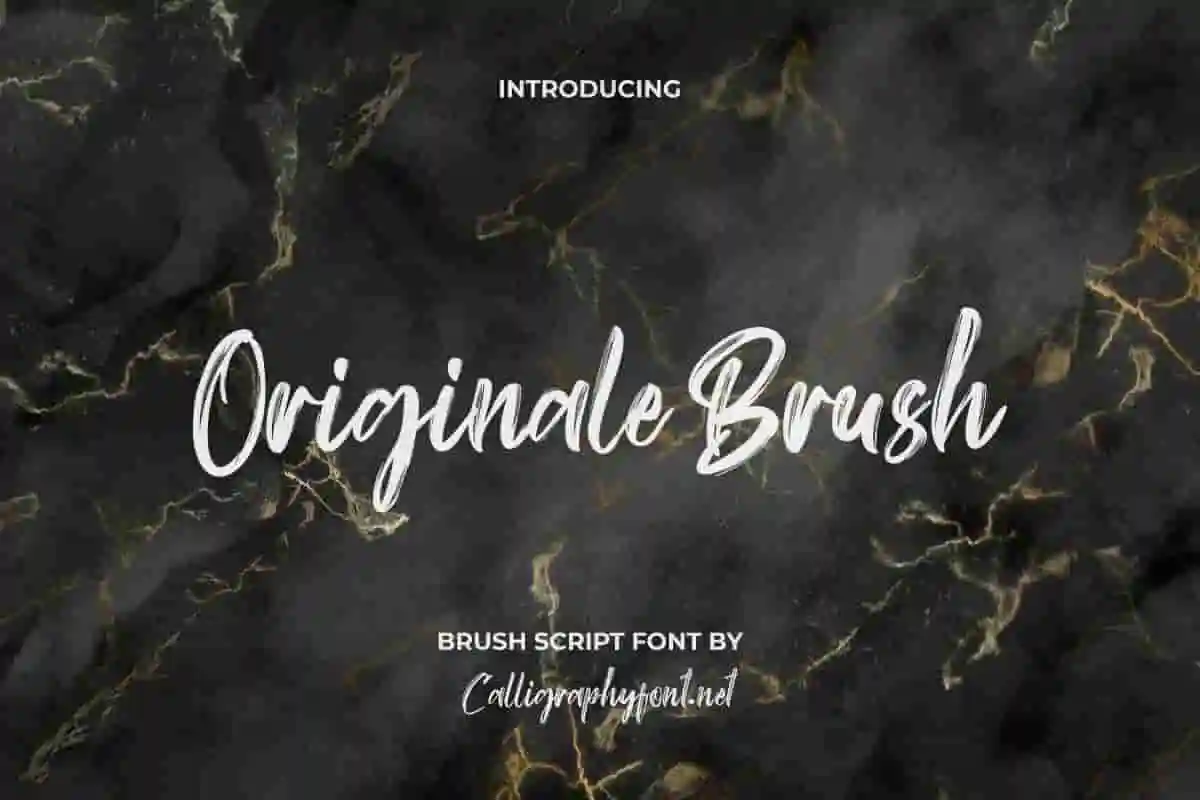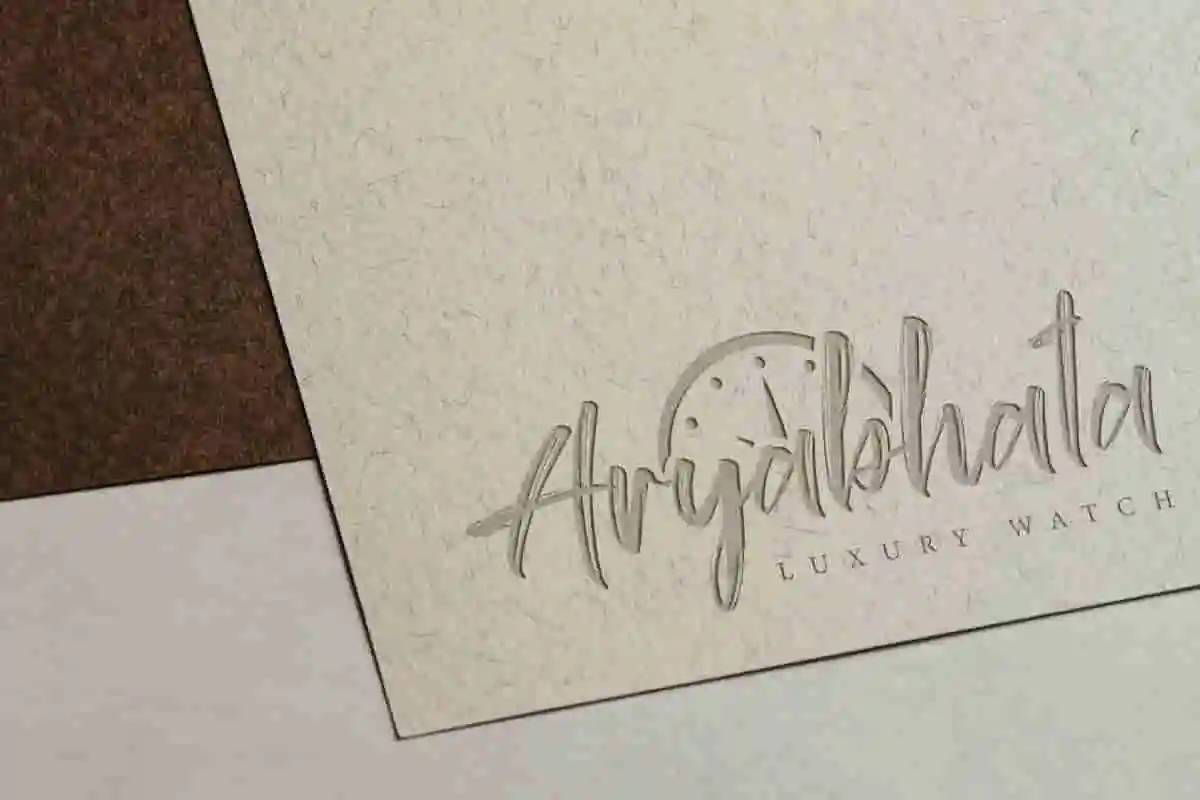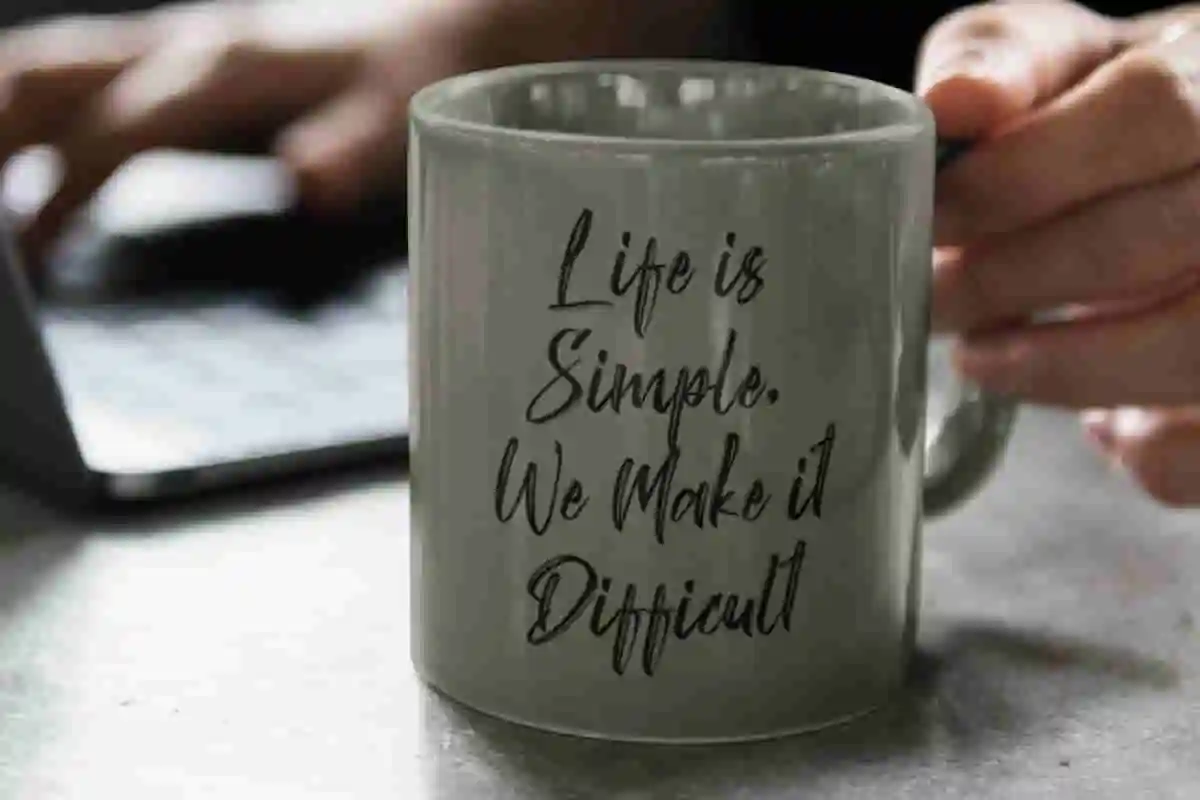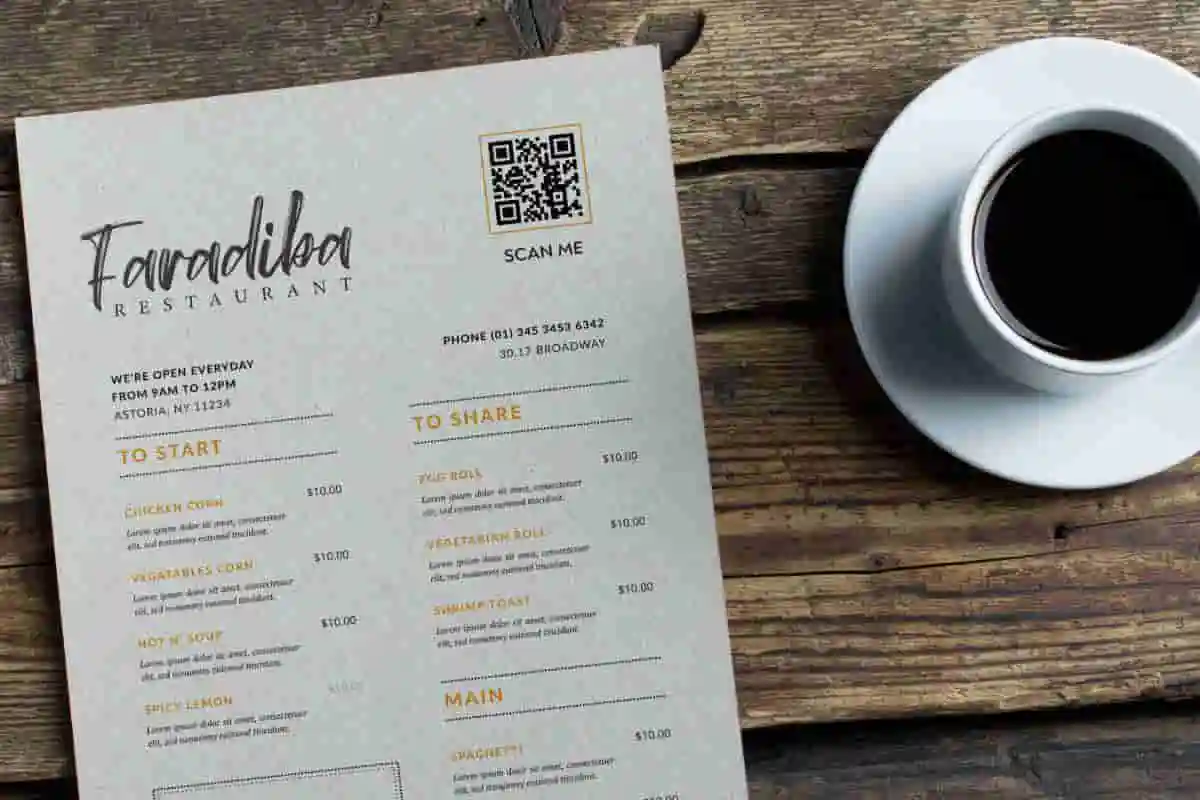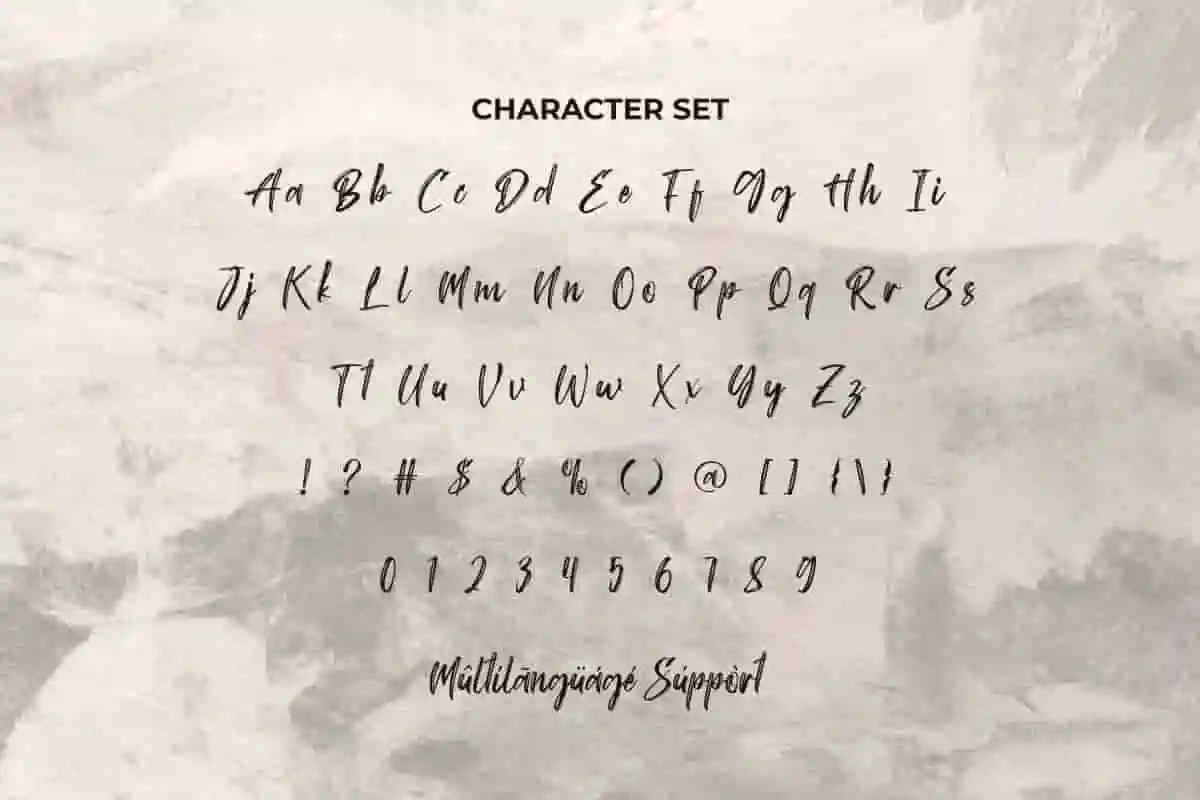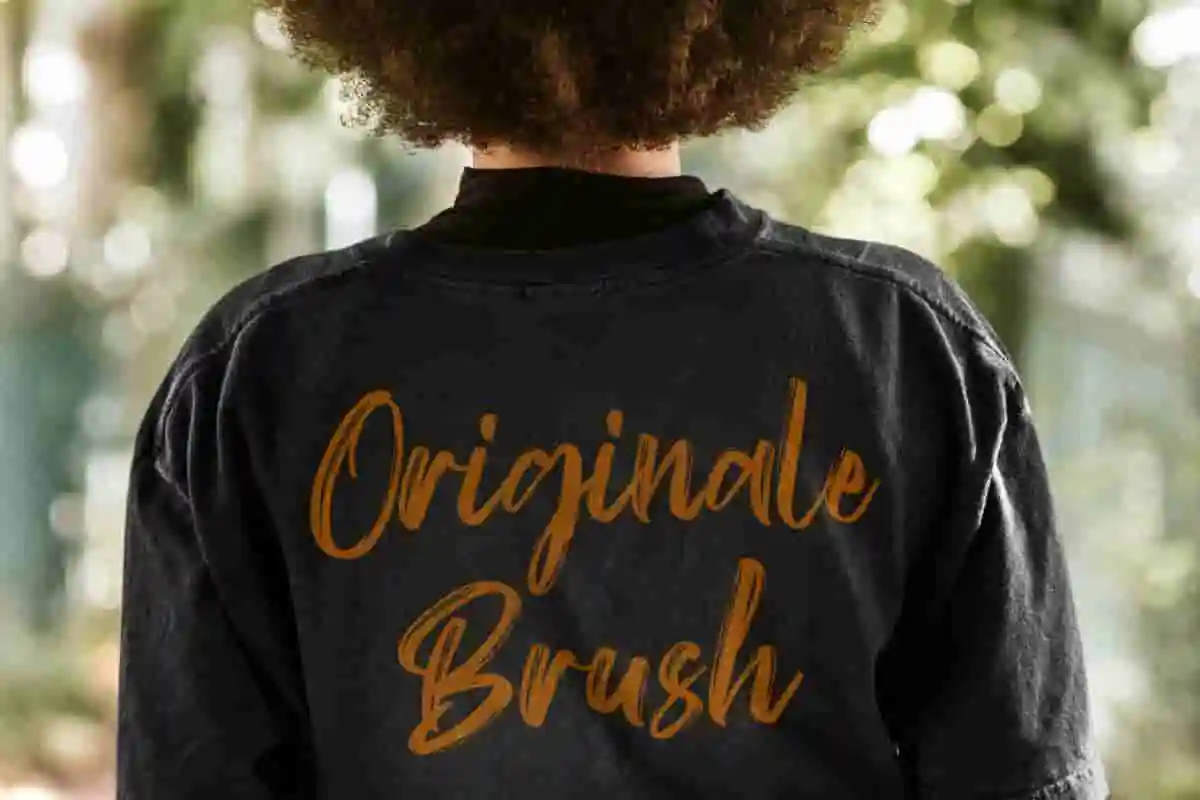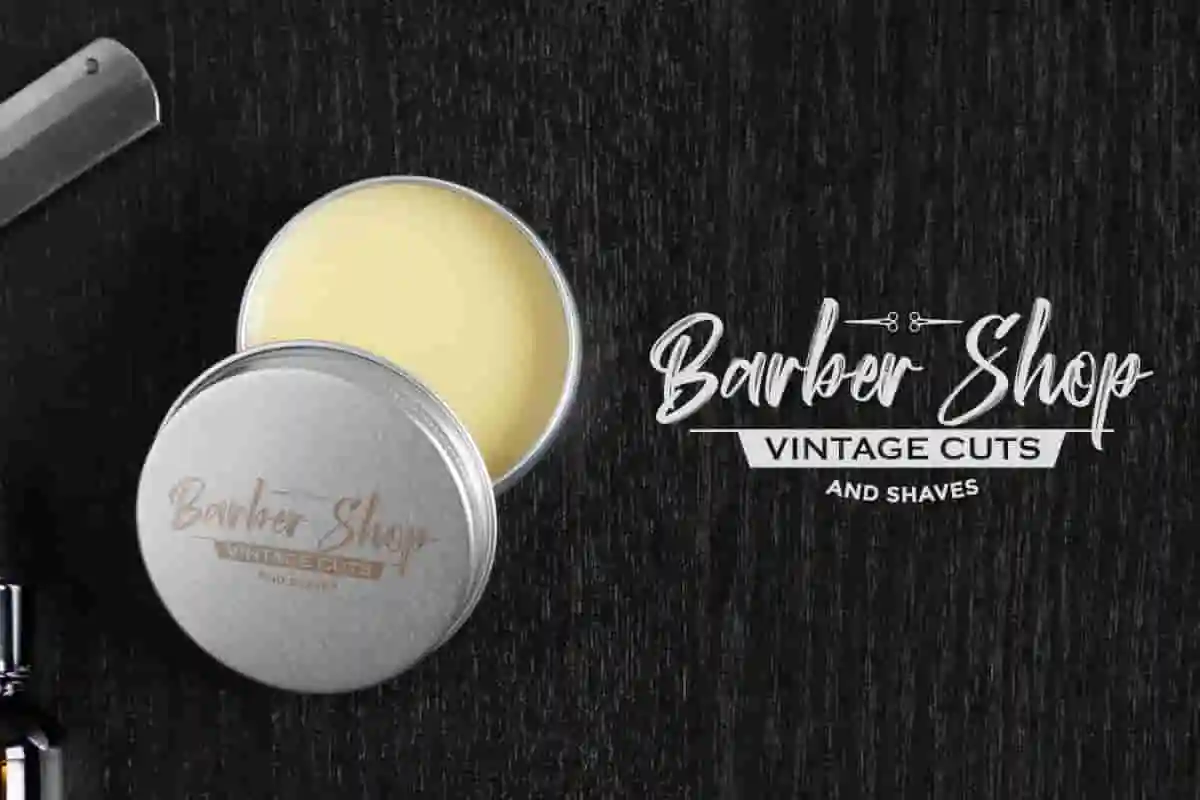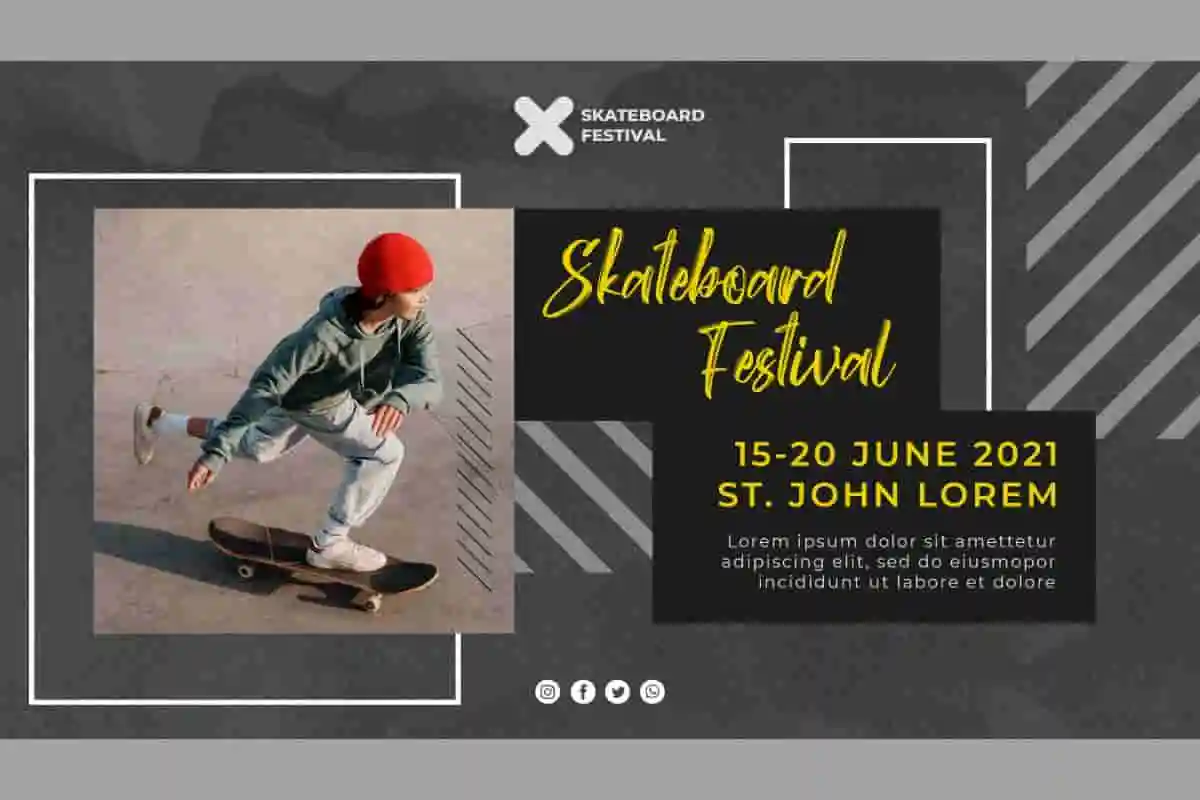
Originale Brush Font
Originale Brush Font is a textured vintage theme brush script font with the timeless feeling of a classic. It will be good for all types of branding projects, embossed, flyer, glassware, graphic designer, website, to stand out!
Originale Brush Font is a textured vintage theme brush script font by CalligraphyFonts. This handcrafted typography has a unique effect like the brush strokes of paint attached to each character making it feel authentic. It will be perfect for any industry, such as accessories, artist, barber, café, clothing, event organizer, fashion designer, fitness center, glassware, graphic designer, handicrafts, printing, publishing, restaurant, sport, and many more.
Whether you’re designing posters, social media graphics, packaging, or merchandise, Originale Brush Font delivers instant impact. Its bold strokes and natural texture mimic authentic brush lettering, giving your projects an edgy yet artistic feel. This makes it an excellent choice for fashion branding, music covers, streetwear labels, or any creative project that demands attention.
Unlike ordinary fonts, Originale Brush Font adds motion and emotion to every word. Its handcrafted details give your text a human touch, making it ideal for projects that need to connect with audiences on a personal level. From modern advertising campaigns to DIY creative ventures, this brush font adapts seamlessly to multiple design needs.
What makes Originale Brush Font even more versatile is its readability. Despite its artistic strokes, it remains clear and easy to use across both digital and print platforms. Pair it with clean sans serifs for a modern look or let it shine on its own as the star of your design.
Elevate your branding and give your creativity a bold new voice with Originale Brush Font. If you’re looking for a display font that combines strength, artistry, and originality, this is the typeface your toolkit needs.
Originale Brush Font comes with a full set of Uppercase and Lowercase Basic Characters, Number, a large range of Punctuation, and Symbol. It will enhance your creative projects, such brand logo, brochure, card design, cover, embossing designs, flyer, invitation, label, mockup designs, packaging design, screen print, stationery, sticker, title, website, or just the art of writing on a background.